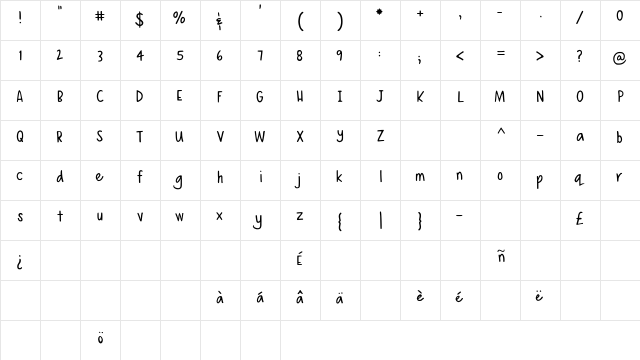
Henry Letter Regular
Design Context for Henry Letter Typeface
Henry Letter is a composed and adaptable typeface that performs quietly and consistently across a wide range of design contexts.